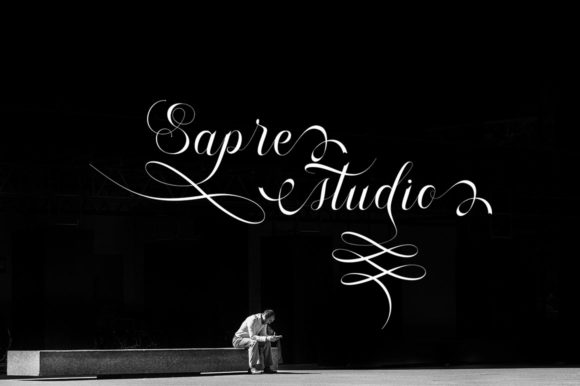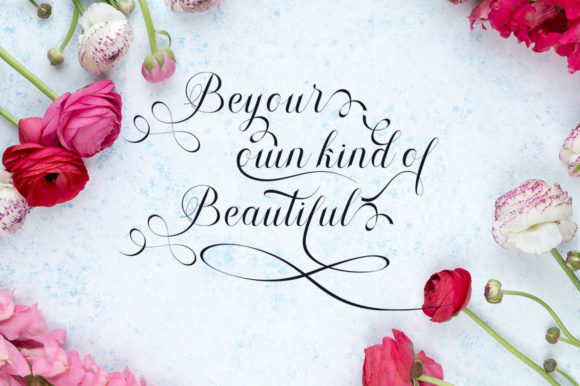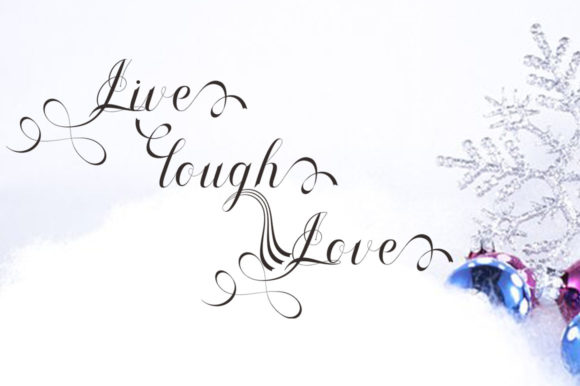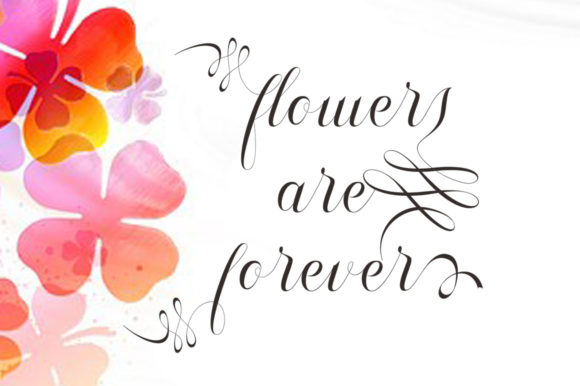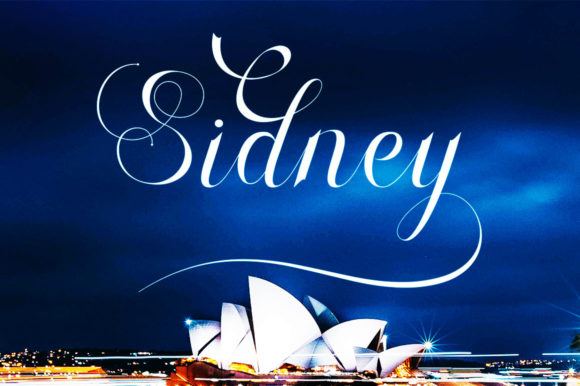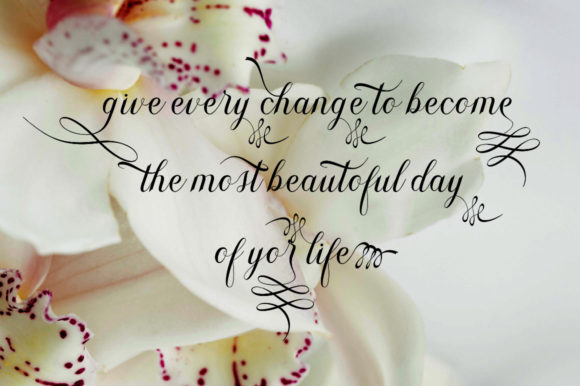
Introduction to Shanghai Font
As designers, we’ve all had those moments when we stumble upon the perfect font to elevate our creative project. It’s like finding a hidden treasure that adds an extra layer of sophistication and elegance to our work. For me, that moment came when I discovered the Shanghai Font. Its unique blend of classic and modern elements had me hooked from the very start.
With its wide kerning and high-quality design, the Shanghai Font is a valuable resource for any designer looking to add a touch of luxury to their work. Whether you’re creating wedding invitations, business cards, or logos, this font is sure to impress. And the best part? It’s available for free download, making it an accessible design resource for designers of all levels.
From its transparent background to its versatility, the Shanghai Font is a true gem in the world of design. In this article, we’ll delve deeper into the features and benefits of this stunning font, and explore why it’s a must-have for any designer looking to take their creative project to the next level.
Key Features of Shanghai Font
- High-quality, stylish design with intricate details, perfect for creative projects
- Unique, hand-crafted design elements, adding a touch of elegance and sophistication to any design project
Honest Review: Shanghai Font
I recently stumbled upon the Shanghai Font, and I must say it’s been a great addition to my design resources. ✨ The font’s high quality and unique style make it perfect for creative projects that need a touch of elegance and sophistication.
However, I do have a few minor issues with the font. ⚠️ The font family is not as extensive as I would like, and some characters may not be available in certain languages.
Overall, I’m impressed with the Shanghai Font. It’s a great design resource that’s perfect for designers looking for a high-quality, unique font to add to their creative projects. With a few minor tweaks, I think this font has the potential to become a staple in the design community.
Tips for Getting the Most Out of Shanghai Font
For the best results, use Shanghai Font on a high quality design resource with a transparent background. This will give your creative project a unique and professional look.
Shanghai Font is ideal for use in logos, business cards, and other design elements where a high-quality, unique font is needed. It’s also a great choice for free download and use in personal or commercial projects.